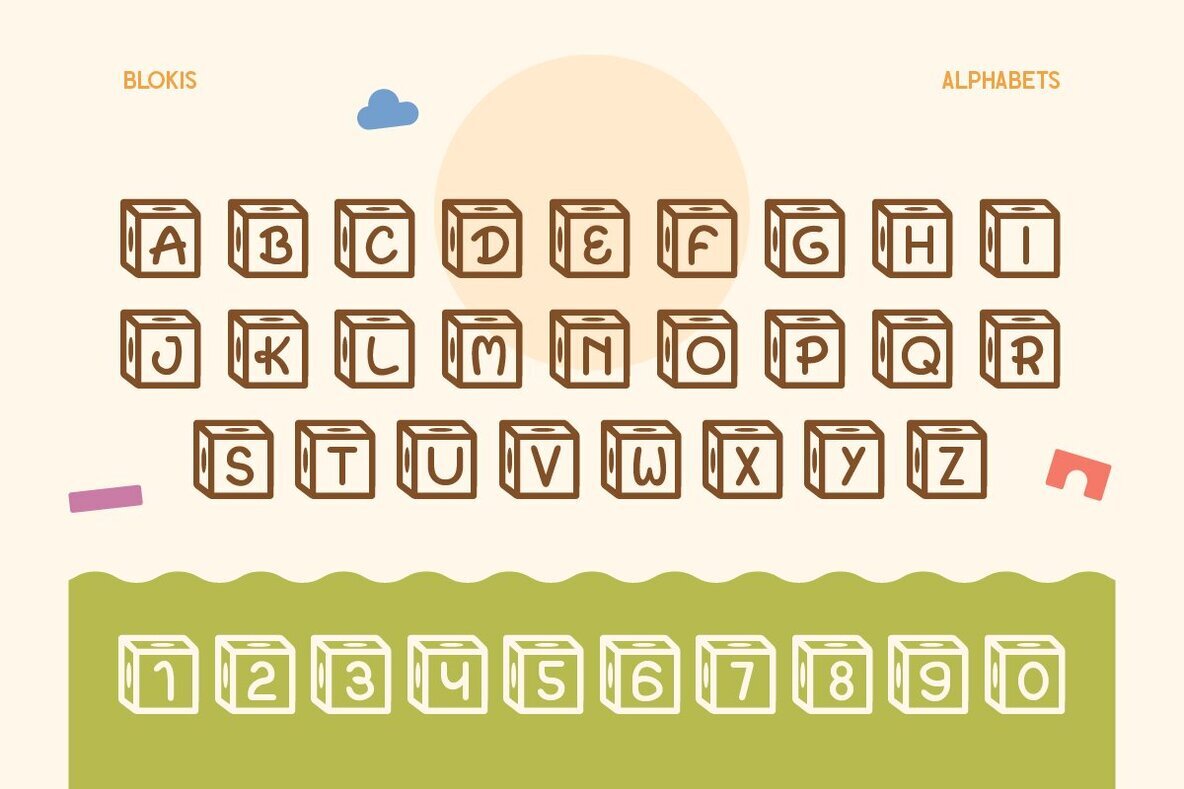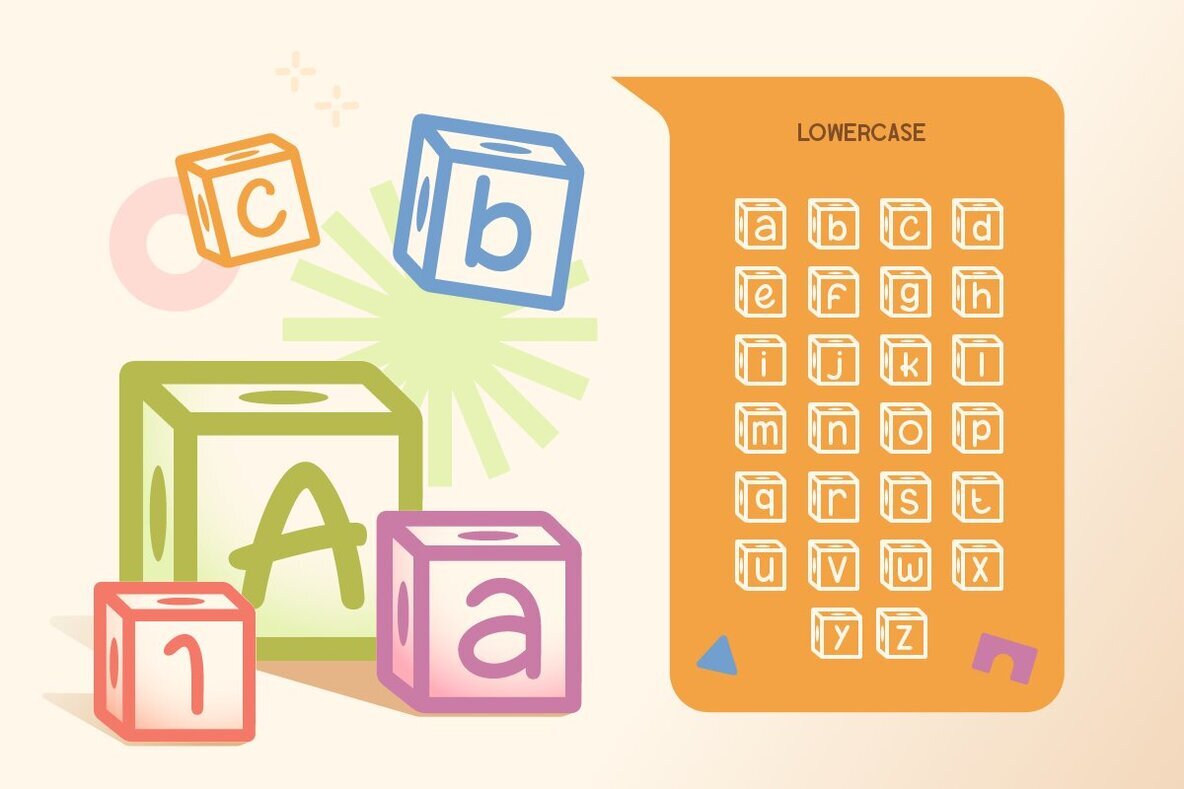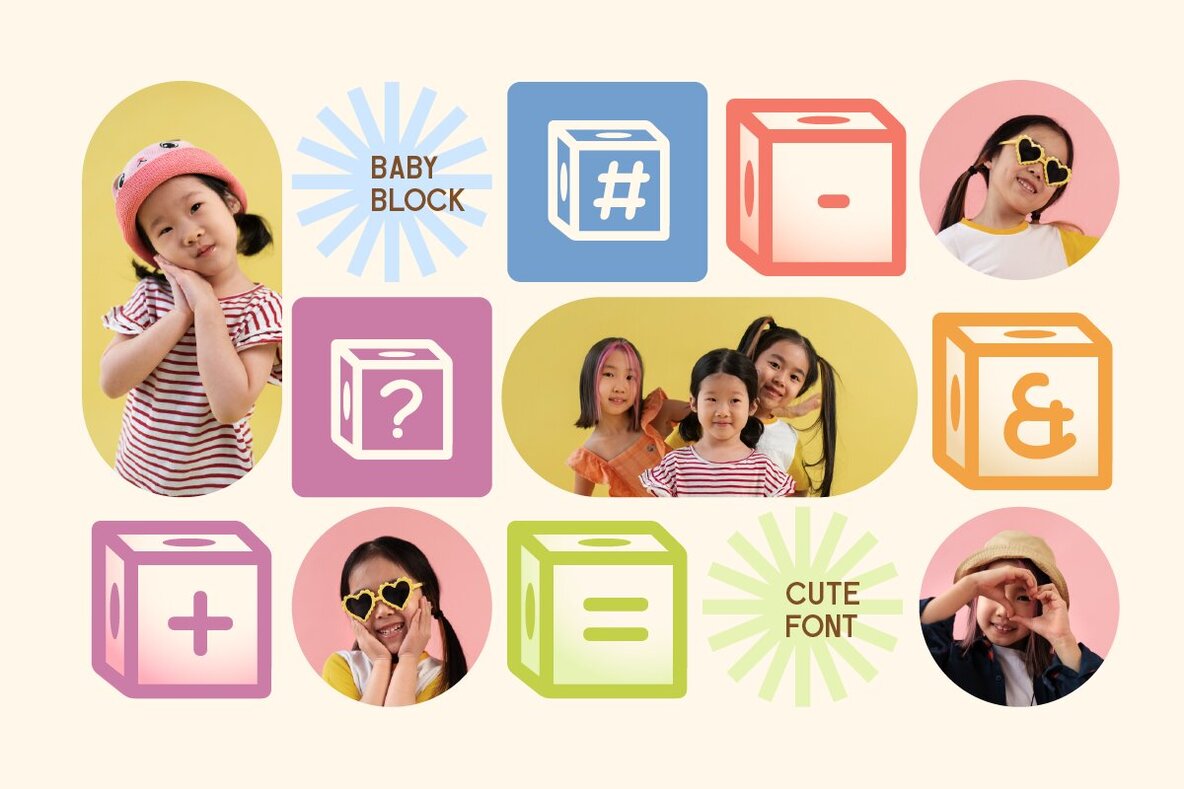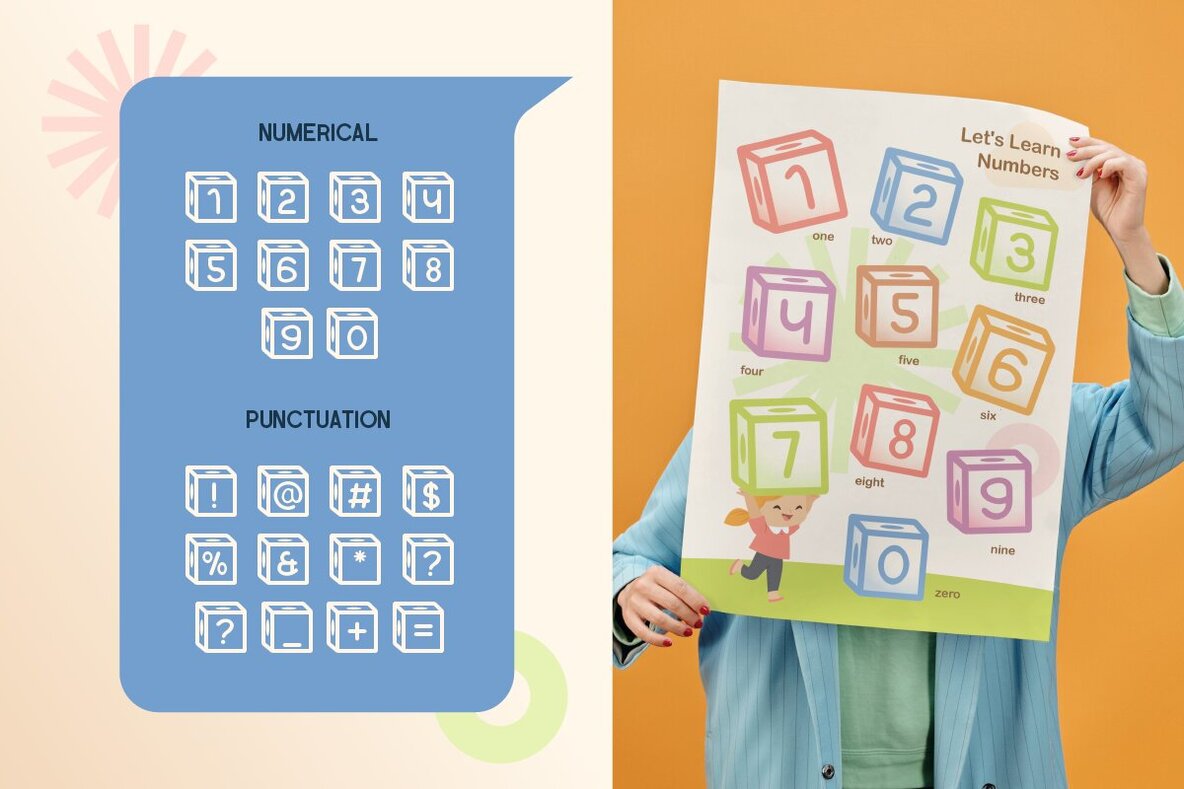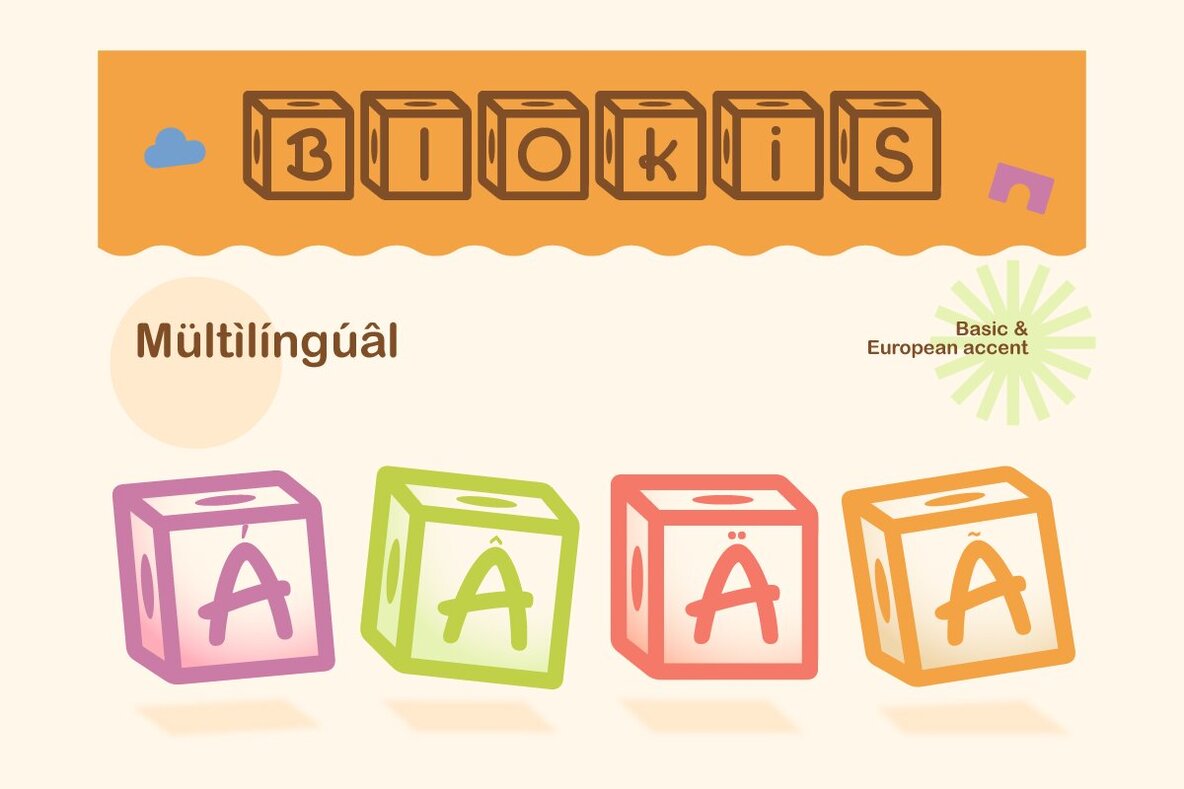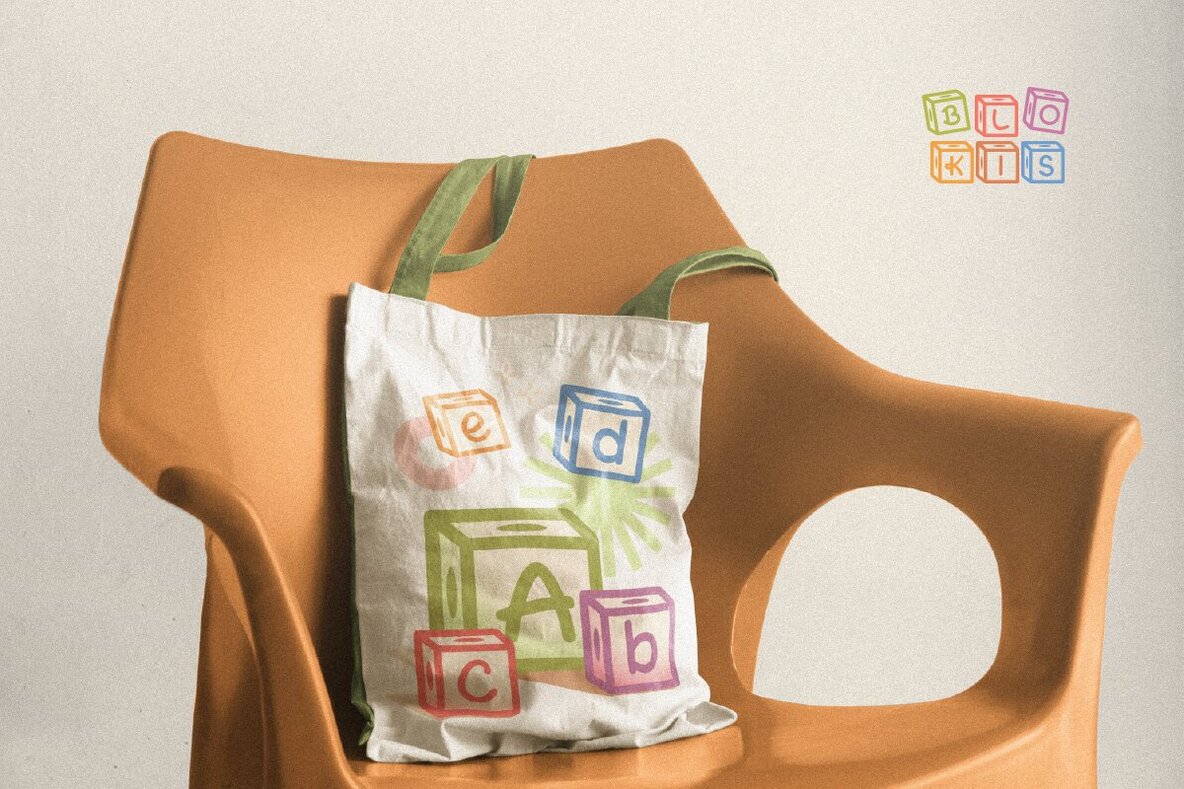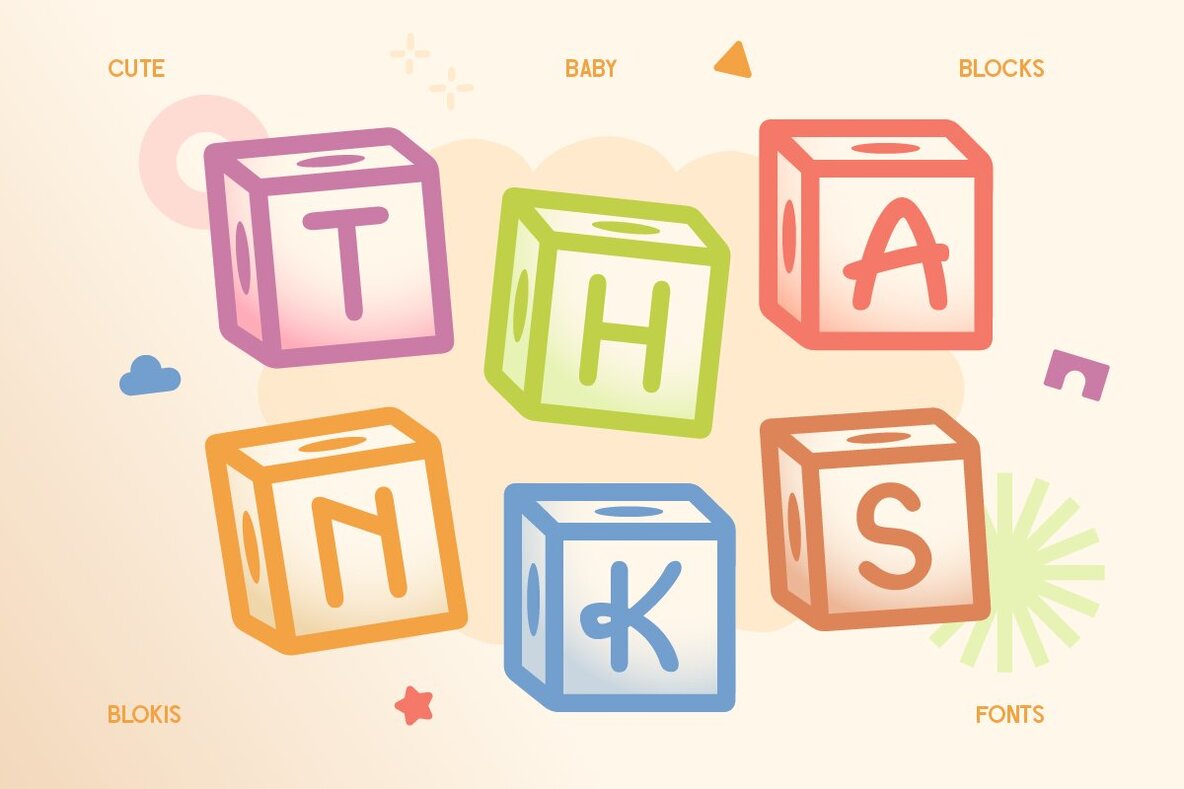
Blokis Font
Blokis
Say hello to Blokis, designed with a sense of youthful energy and fun. Perfect for capturing the essence of playfulness and creativity, also got the attention for young readers. This font has characterized bold with block and cartoonish style making them ideal for children’s book, educational materials and playful design. The simple style of the block make it easy to read. Ideal for birthday invitation, classroom poster, playful logo and any design project that need sense of fun and creativity for kids. Features: